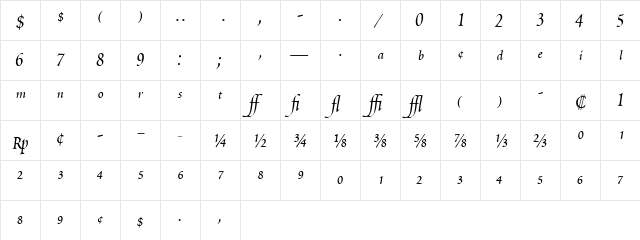
Poetica ChanceryExpert Italic Font Preview
Poetica ChanceryExpert Italic
Design Context for Poetica ChanceryExpert Typeface
Poetica ChanceryExpert offers clean, dependable letterforms without strong stylistic allegiance, making it a practical choice for designers who need flexibility. The dynamic lean of this cut emphasises speed and emphasis in any layout.
Pro Tip: Use Poetica ChanceryExpert for emphasis, pull quotes, and subheadings where its slanted energy can add rhythm to the layout.